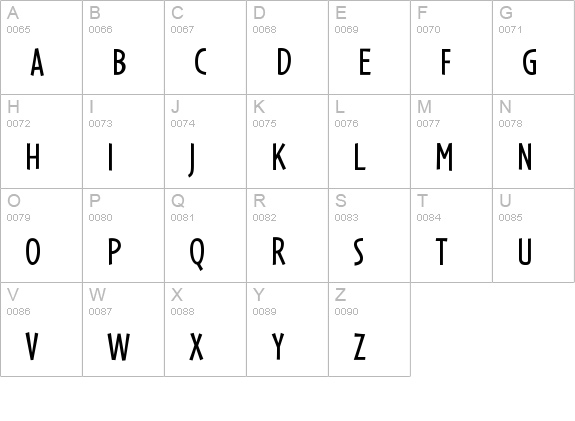
Cafeteria-Regular Font Details
Cafeteria-Regular is the standard, neutral variant in the Cafeteria typeface family \xE2\x80\x94 well suited to general body text, paragraphs, and standard typographic work.
Cafeteria-Regular is a delightful and versatile font that will add a touch of charm to any design project. With its clean lines and friendly curves, this font is perfect for conveying a welcoming and approachable vibe. Whether you're designing menus, posters, or invitations, Cafeteria-Regular will effortlessly capture attention and make your text pop. This font is not only aesthetically pleasing, but it also offers functionality and ease of use. Its legibility ensures that your message is easily readable, while its bold and distinct characters give your words a unique personality. Cafeteria-Regular is designed to make your text stand out and leave a lasting impression on your audience. And the best part? Cafeteria-Regular is completely free! That's right, you can download this amazing font for free at FontsMarket.com. We believe that great design should be accessible to everyone, and that's why we're offering this font at no cost. So go ahead, enhance your designs with the irresistible charm of Cafeteria-Regular without putting a dent in your budget. Don't miss out on this opportunity to elevate your design projects with Cafeteria-Regular. Download it now for free at FontsMarket.com and see the difference it can make in your work. Whether you're a professional designer or a creative enthusiast, this font is sure to become a staple in your font collection. Don't wait any longer, start creating stunning designs with Cafeteria-Regular today!